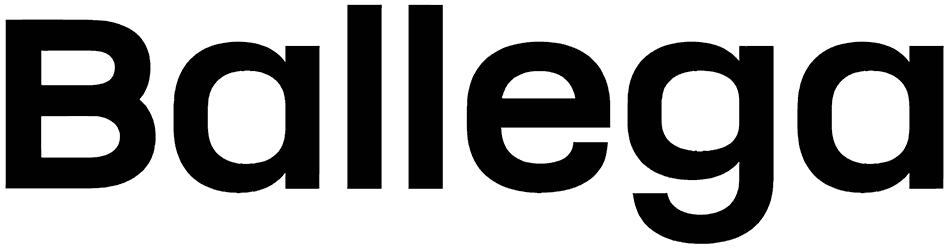
Ballega Font
It’s okay to be completely mesmerized by the simple font of Ballega and not even know why. That all boils down to the undeniable appeal of modern styles and how they stick to basic, neat elements as they convey a clear message.
The thing is that you need a sans-serif font like Ballega whenever you’re working on a social media banner, advertising flyer, announcements, or anything that requires a bold, eye-catching headline that’s supposed to be easy to read.